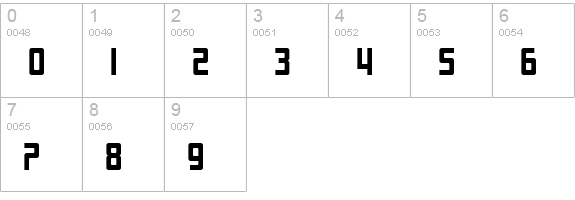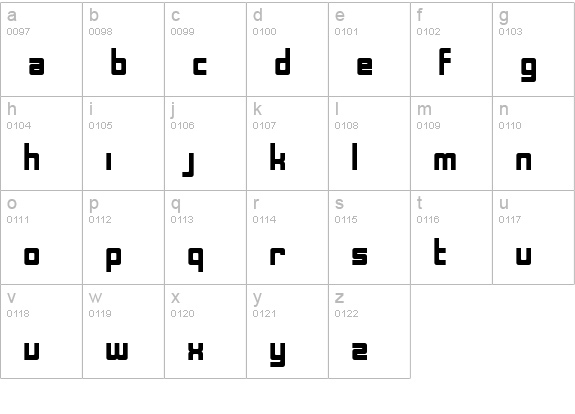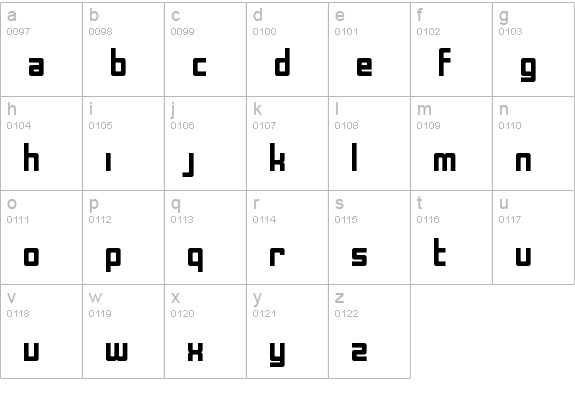
SF Laundromatic Bold Font Details
SF Laundromatic Bold is a strong, high-contrast variant in the SF typeface family \xE2\x80\x94 well suited to headlines, attention-grabbing titles, and strong calls-to-action.
SF Laundromatic Bold is a bold and impactful font that exudes strength and confidence. Its clean lines and distinctive curves make it perfect for catching the eye and commanding attention. This font is perfect for projects that require a bold statement, such as headlines, logos, and branding materials. What sets SF Laundromatic Bold apart is not just its boldness, but also its versatility. It is equally suited for both modern and classic designs, effortlessly blending the traditional with the contemporary. This font can be used to create a wide range of designs, from sleek and sophisticated to edgy and urban. But what truly makes SF Laundromatic Bold exceptional is that it is freely available to download at FontsMarket.com. Yes, you read that right – this incredible font can be yours for free! FontsMarket.com is a trusted source for high-quality fonts, and SF Laundromatic Bold is no exception. By offering this font for free, FontsMarket.com ensures that everyone can have access to professional-grade typography without breaking the bank. So why wait? Download SF Laundromatic Bold today and elevate your designs to new heights. Whether you're a designer, a business owner, or someone who simply appreciates good typography, this font is a must-have in your collection. Its boldness, versatility, and the fact that it is freely available make it an irresistible choice for any project. Don't miss out on this opportunity to enhance your designs with the power of SF Laundromatic Bold.